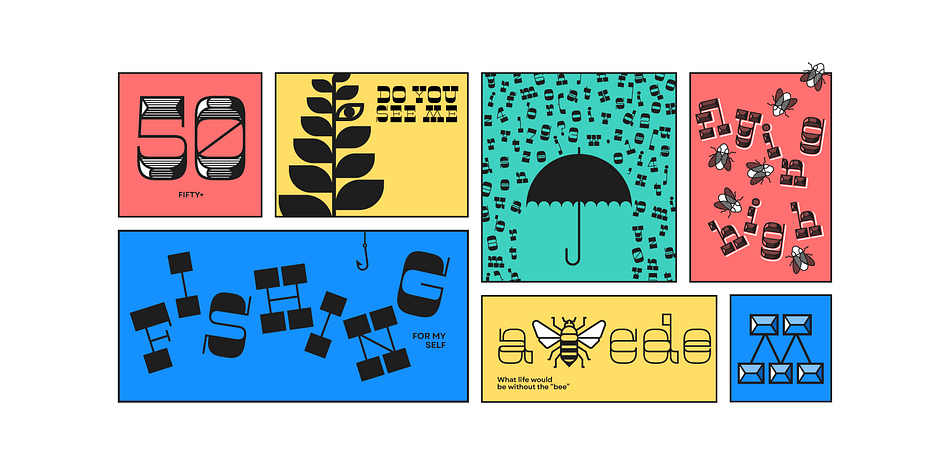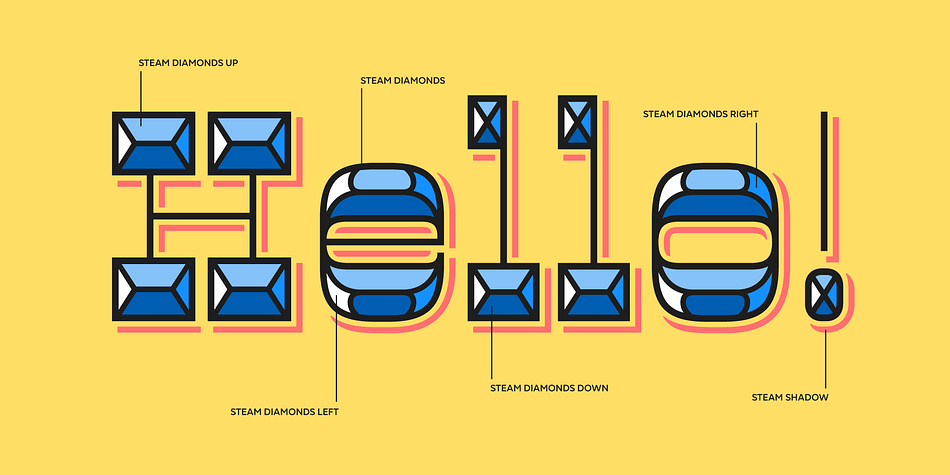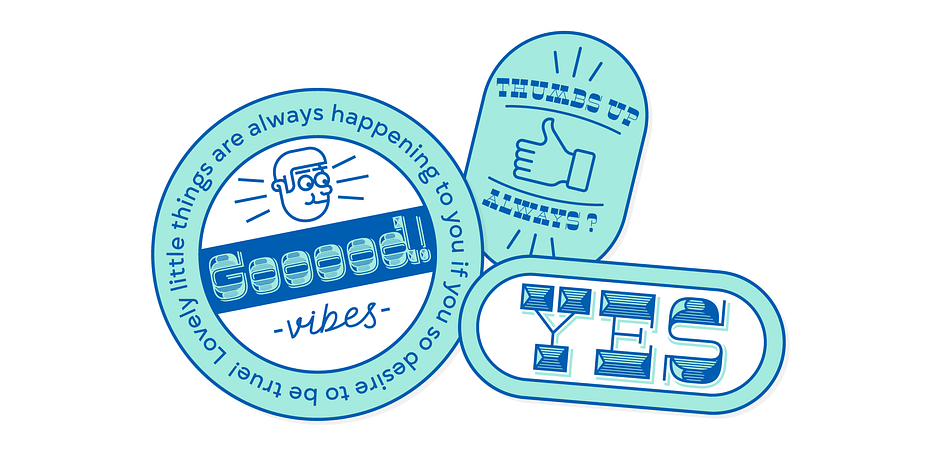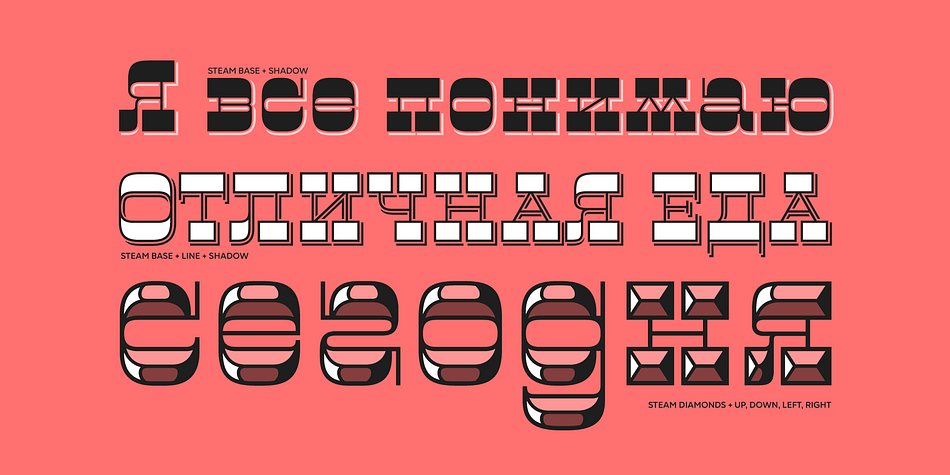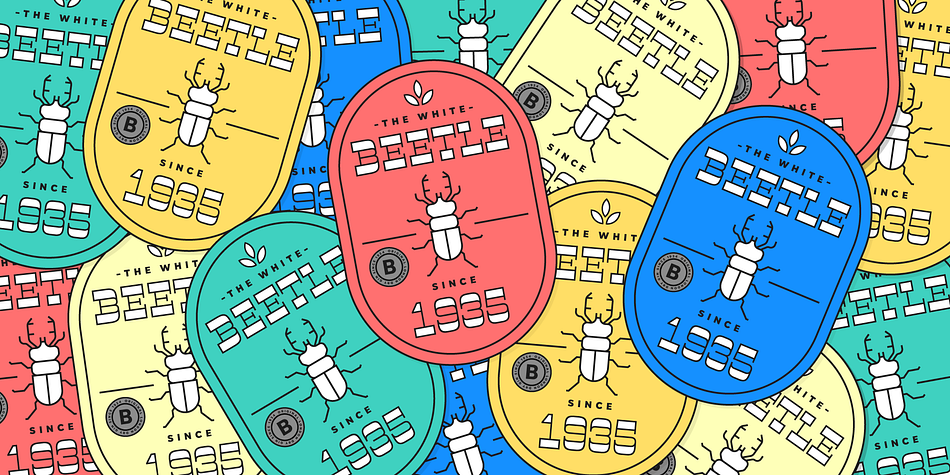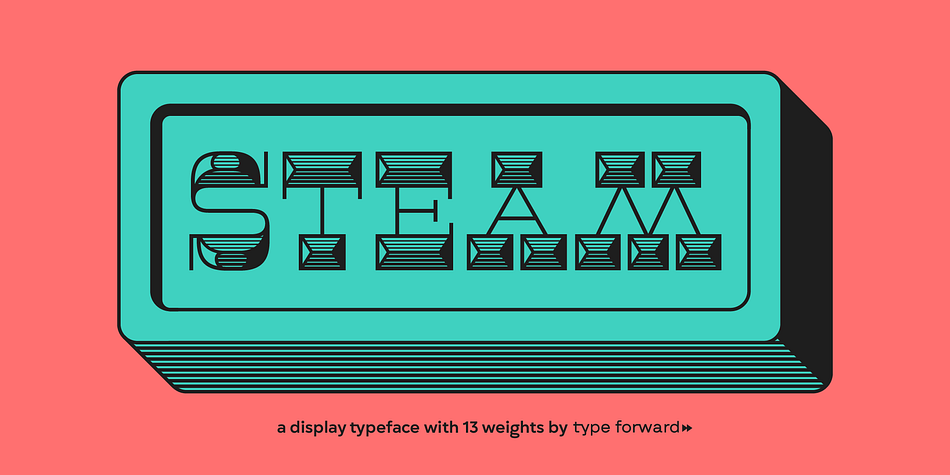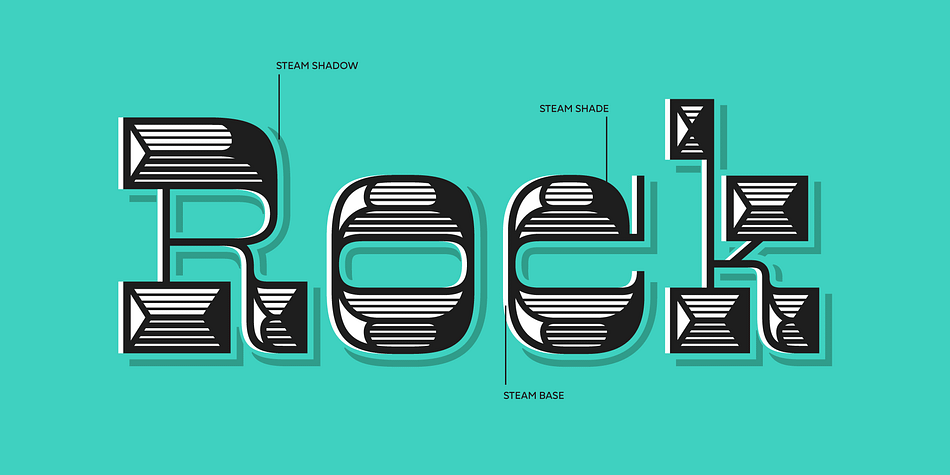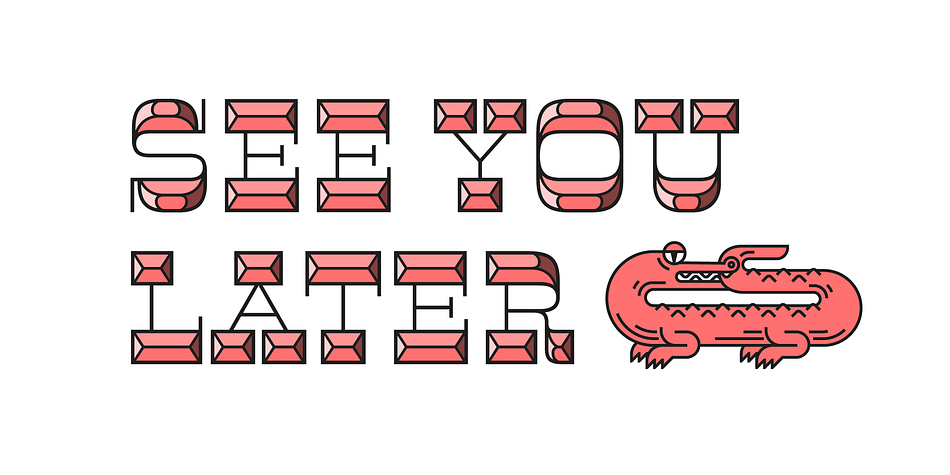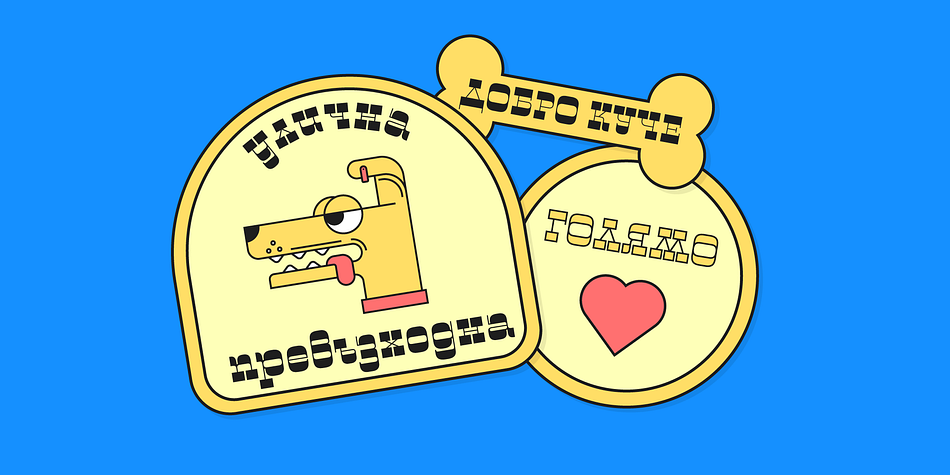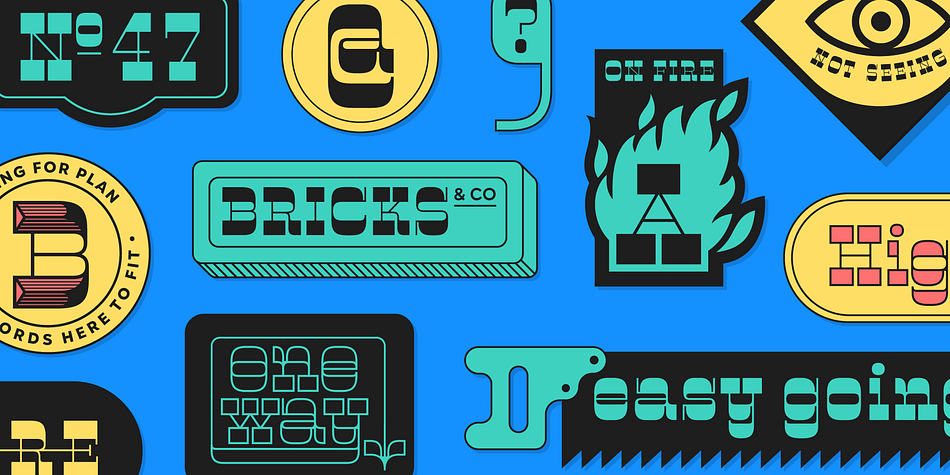
Steam
Designed by Stan Partalev and Mirela Belova, Steam is a display, western and wood type font family. This typeface has thirteen styles and was published by Type Forward.
Steam combines the spirit of the old-fashioned wood type with a pinch of modern flavour.
Its distinctive reversed high contrast and extremely bold serifs make it impossible to stay unnoticed.
It’s a fun and bold unconventional typeface that we’ve designed with great passion and curiosity!
The type family consists of 13 weights that are divided into several packs.
Each font in the pack can be layered on top of each other to make a funkier look.
Steam is multilingual! It speaks more than 130 languages and supports extended Latin, Cyrillic, punctuation, default and small numbers, symbols and signs.
It is also familiar with the OpenType features like standard and discretionary ligatures, stylistic sets, localized forms, small numbers and fractions and more.
Steam looks best on logos, posters, headlines, T-shirts and is perfect anytime you need some bold letters with specific flavour and touch.